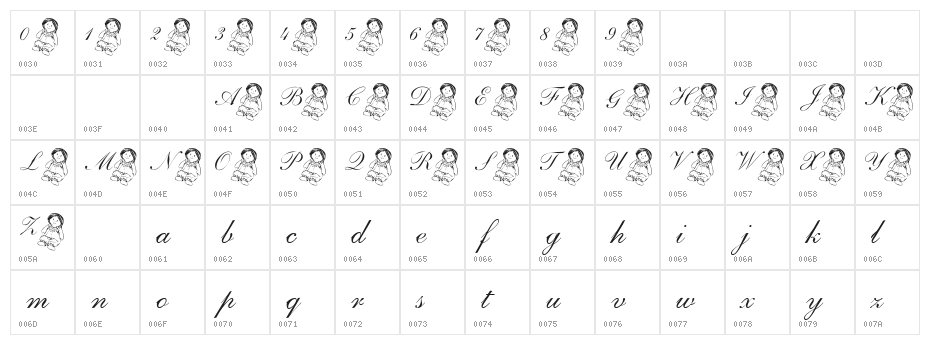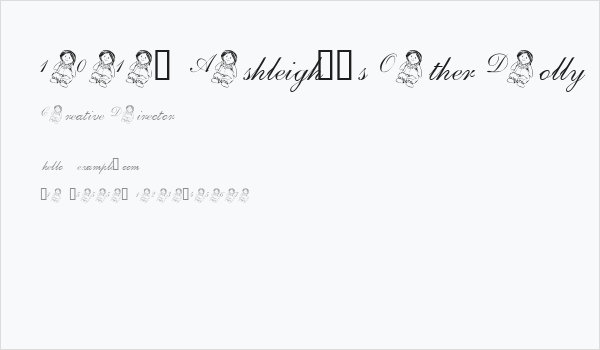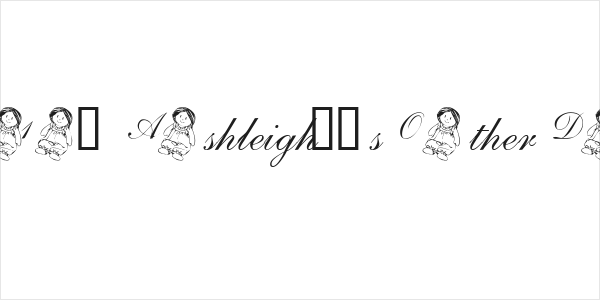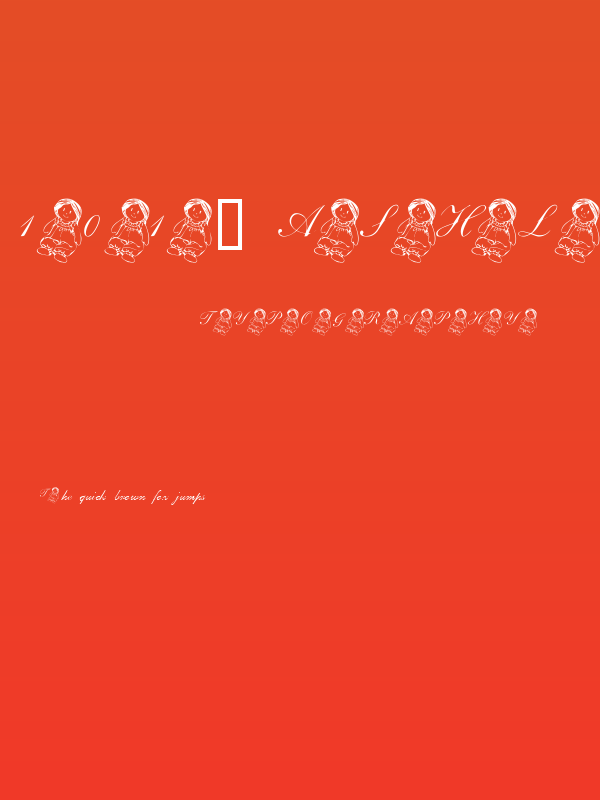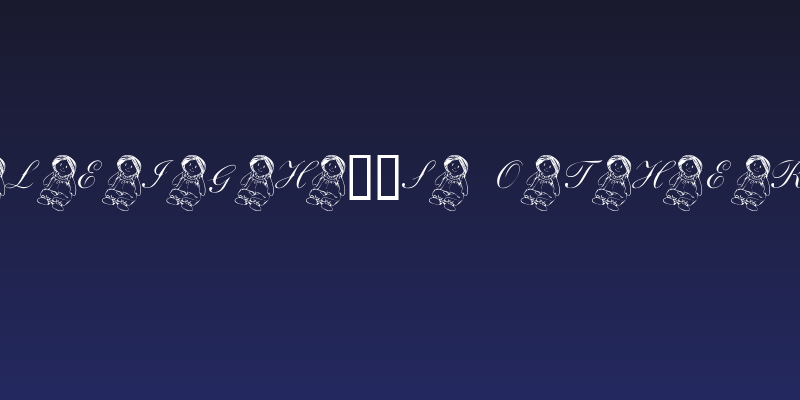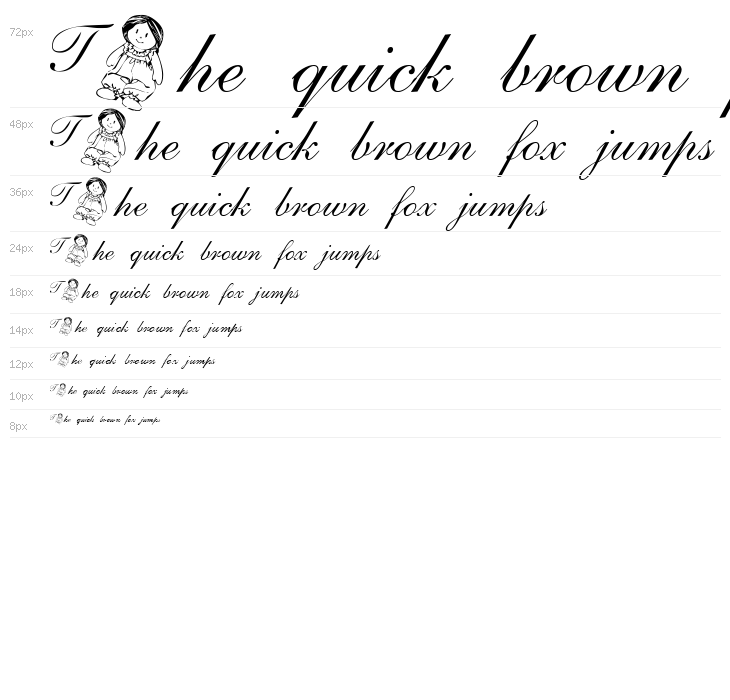
101! Ashleigh's Other Dolly Font
101! Ashleigh's Other Dolly Description
This font features a unique blend of elegance and playfulness, combining classic script lettering with whimsical doll illustrations. The uppercase letters are adorned with charming doll figures, adding a decorative and playful touch. The lowercase letters maintain a traditional script style, characterized by smooth, flowing lines and elegant curves. The numerals also incorporate the doll motif, creating a cohesive and distinctive look. This font is ideal for projects that require a touch of whimsy and elegance, such as children's book covers, playful invitations, or creative branding.
| Use Case | Headlines, Logos, Decorative text |
| Proposed Projects | Ideal for children's book covers, playful invitations, creative branding, and decorative projects. |